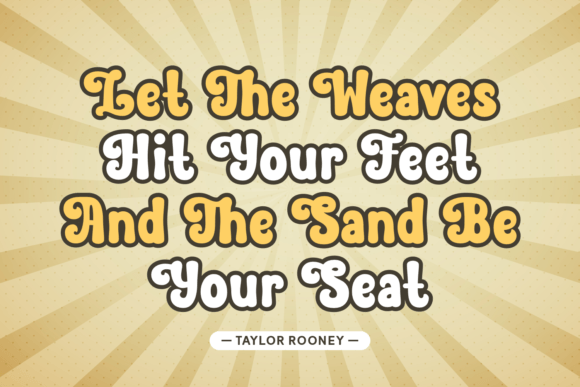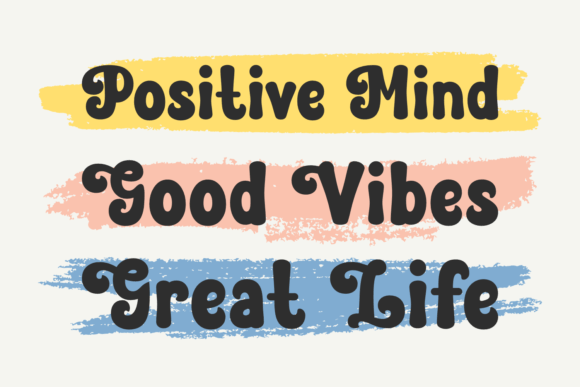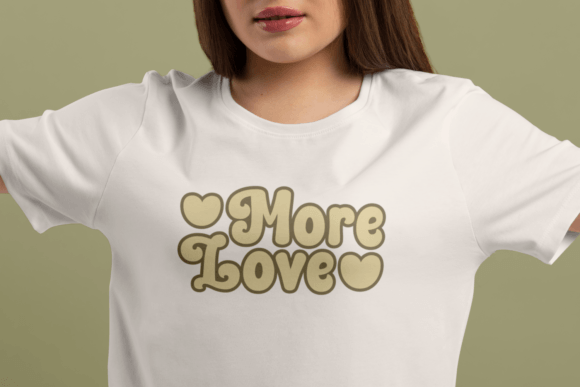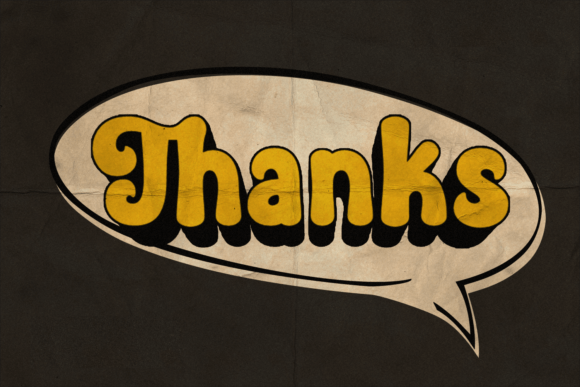
Unlock the Magic of Your Designs
There’s something special about discovering the perfect font to bring your creative vision to life. You’re browsing through a sea of fonts, and then, suddenly, you stumble upon the one that makes everything click. The characters seem to dance on the page, and you can’t help but feel a surge of excitement. That’s exactly what happened when I found the Amelia Magical Font.
This sweet and joyful display font is designed to add a touch of fun and retro vibes to your designs. With its thick and bubbly characters, it’s the perfect choice for anyone looking to create eye-catching and memorable visual content. The Amelia Magical Font is not only visually appealing but also PUA encoded, making it easy to access all the glyphs and swashes you need to create stunning designs.
Amelia Magical Font Key Features
- Unique Magical Script Style: Amelia Magical Font features an enchanting, cursive script style that adds a touch of magic to any design.
Designer Review: Amelia Magical Font
Overall, I found the Amelia Magical Font to be a whimsical and enchanting addition to any design project. ✨ The font’s unique blend of modern and vintage elements makes it perfect for creating a sense of wonder and magic. I particularly love the way the letters seem to dance across the page, adding a touch of personality to any text.
One of the standout features of the Amelia Magical Font is its versatility. ✨ It can be used for a wide range of projects, from children’s books and fairy tales to fantasy novels and even branding for companies that want to convey a sense of magic and enchantment. The font also works well in both digital and print formats, making it a great choice for designers who work in multiple mediums.
- ⚠️ The Amelia Magical Font may not be the best choice for projects that require a more serious or formal tone, as its whimsical nature can come across as childish or unprofessional.
- ⚠️ The font’s unique elements can sometimes be distracting, particularly in larger blocks of text or when used for body copy.
In terms of overall impression, I would give the Amelia Magical Font 4 out of 5 stars. While it may not be suitable for every project, it is a fantastic choice for designers who want to add a touch of magic and whimsy to their work. With its unique blend of modern and vintage elements, the Amelia Magical Font is sure to delight and inspire designers of all levels.
Amelia Magical Font is ideal for use in:
- Magical themed websites and social media graphics
- Whimsical wedding invitations and stationery